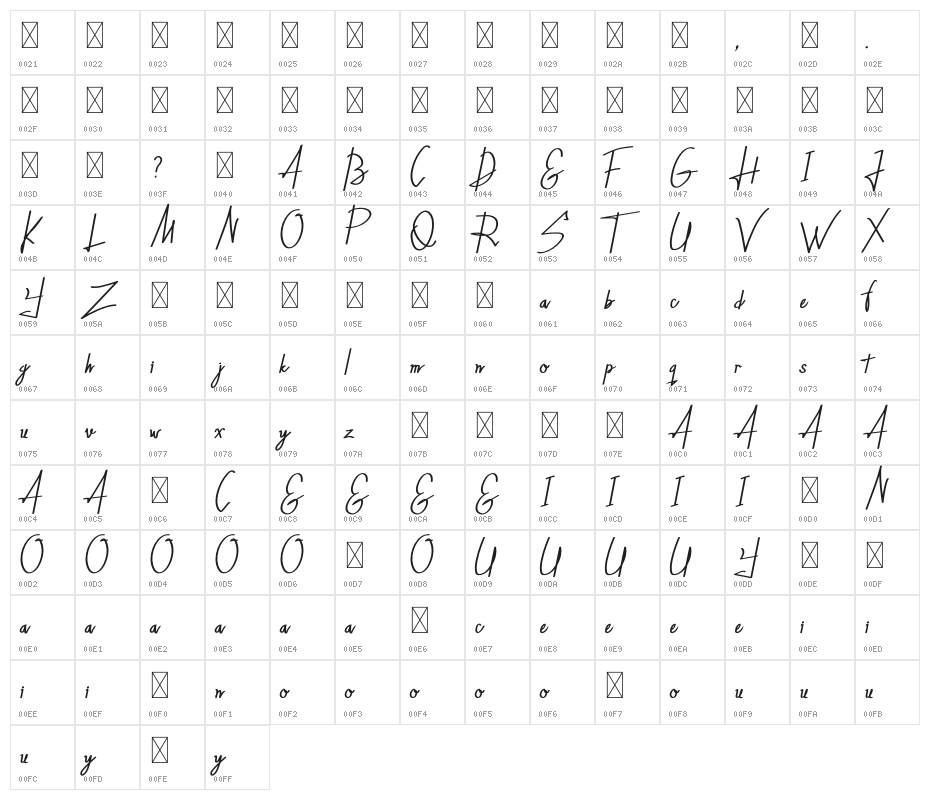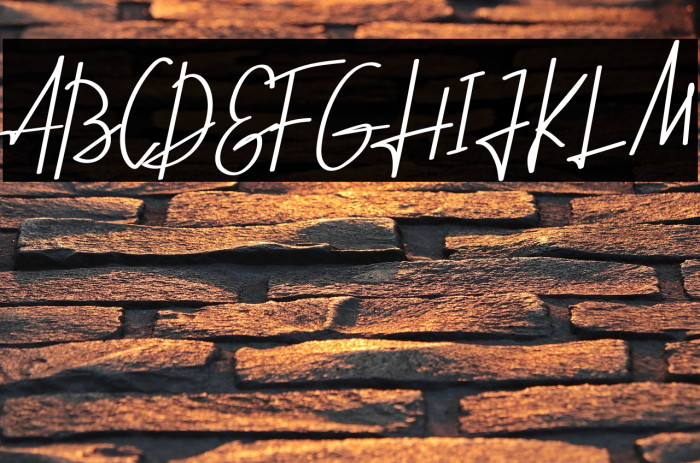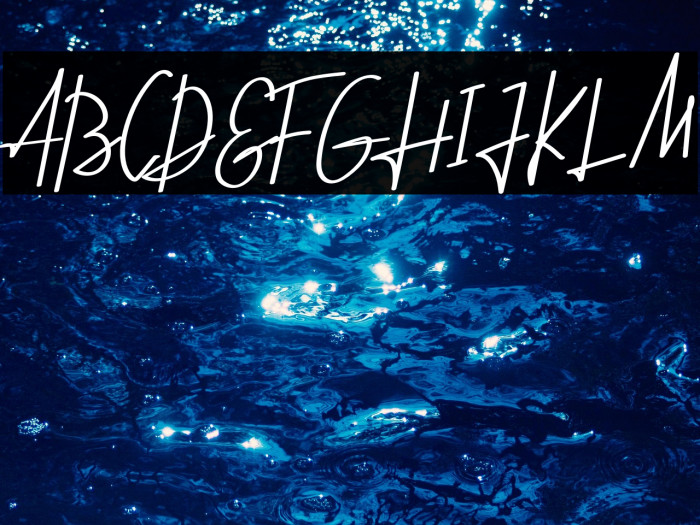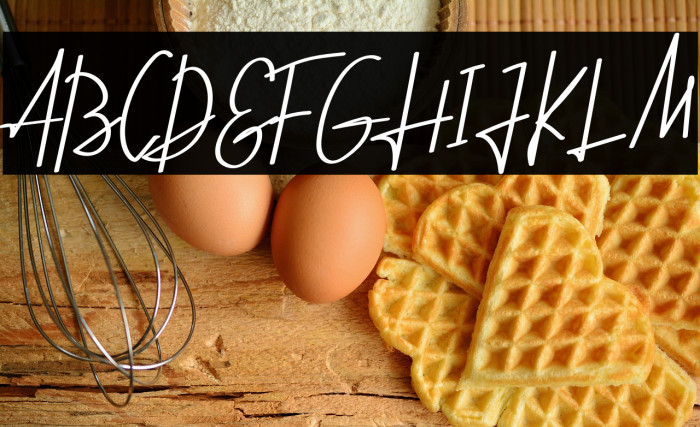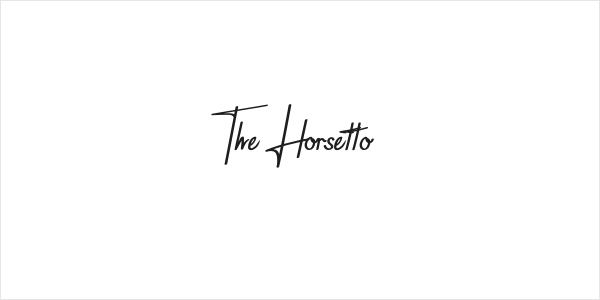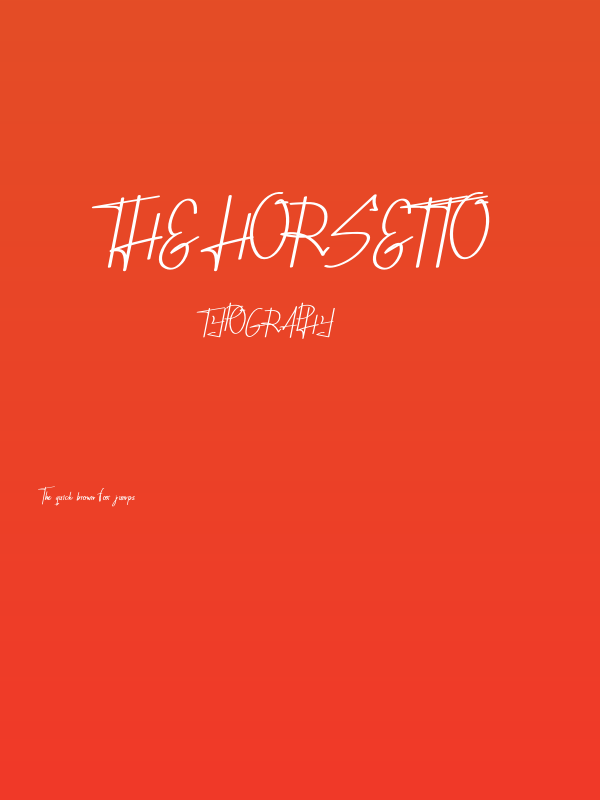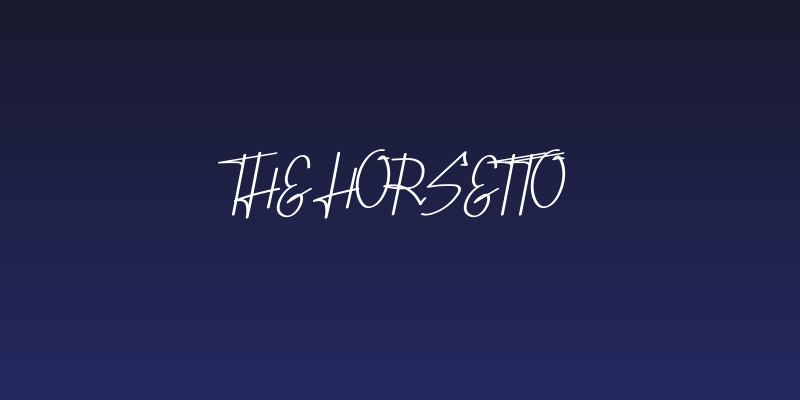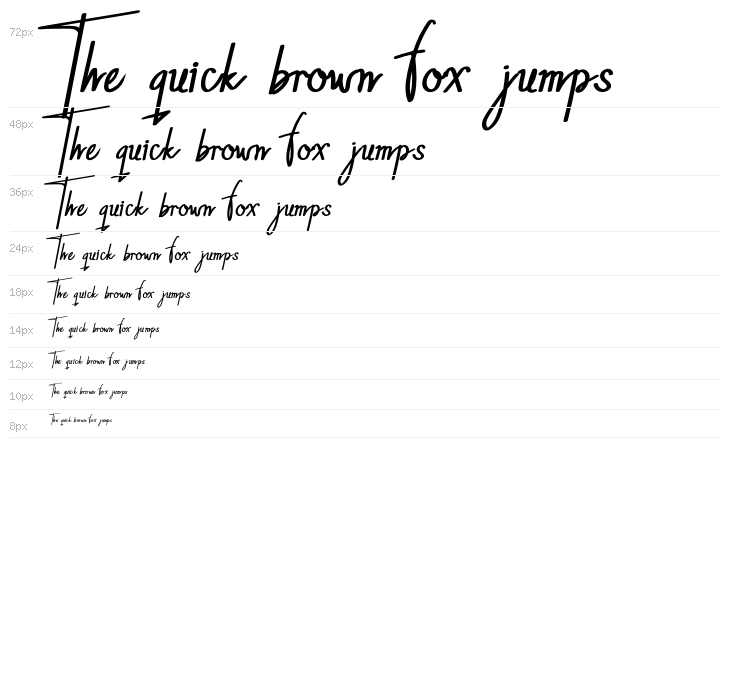
The Horsetto Font
The Horsetto Description
This font exhibits a dynamic and expressive style, characterized by its handwritten appearance. The uppercase letters are tall and slightly slanted, giving a sense of movement and energy. The lowercase letters maintain a consistent flow, with elegant loops and curves that enhance its handwritten aesthetic. The overall design is both artistic and informal, making it suitable for creative projects. The font's unique character shapes and varying line thicknesses contribute to its distinctive look, while maintaining legibility.